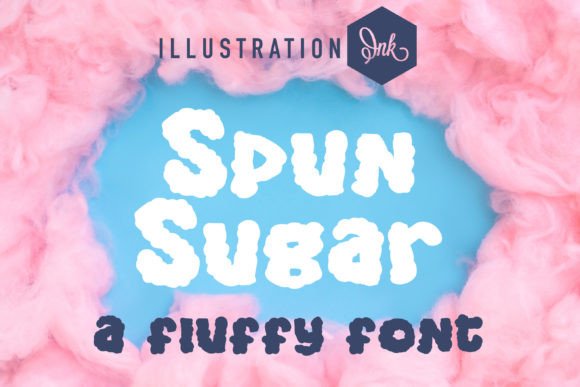
Step into a world of whimsical wonder with Spun Sugar Font, a display font that takes you on a nostalgic journey through childhood memories. The mere sight of this hand-crafted font is like biting into a cloud of cotton candy, evoking a sense of pure delight and innocent joy.
With its bouncy, organic forms and a touch of playful elegance, Spun Sugar Font transforms your words into captivating visual masterpieces. Whether you're creating invitations for a special celebration, designing greeting cards with heartfelt messages, or crafting logos for businesses with a touch of whimsy, this font is your perfect companion.
Immerse yourself in the delightful world of Spun Sugar Font and let your imagination soar. Picture your words dancing across the page, as if spun from strands of sugar, captivating the hearts of all who lay eyes upon them. This font is more than just a type; it's an artistic expression that brings a smile to the face and sparks joy in the soul.